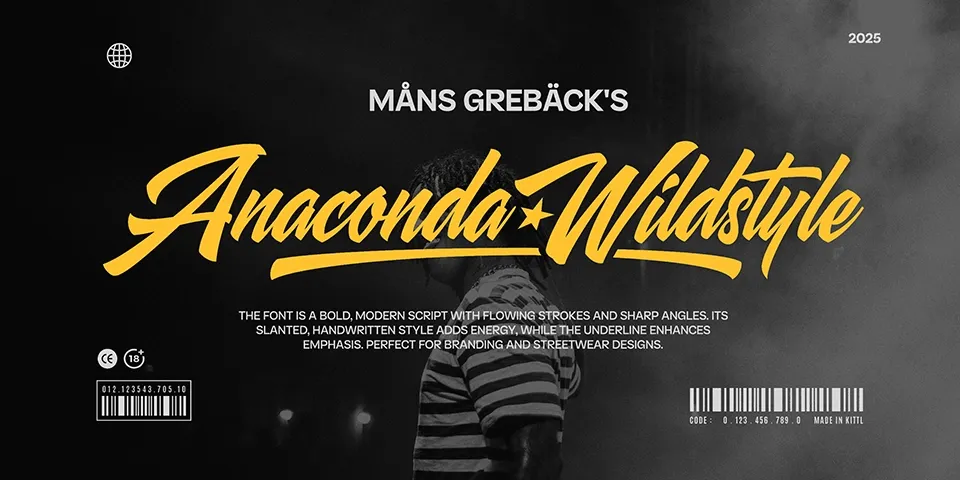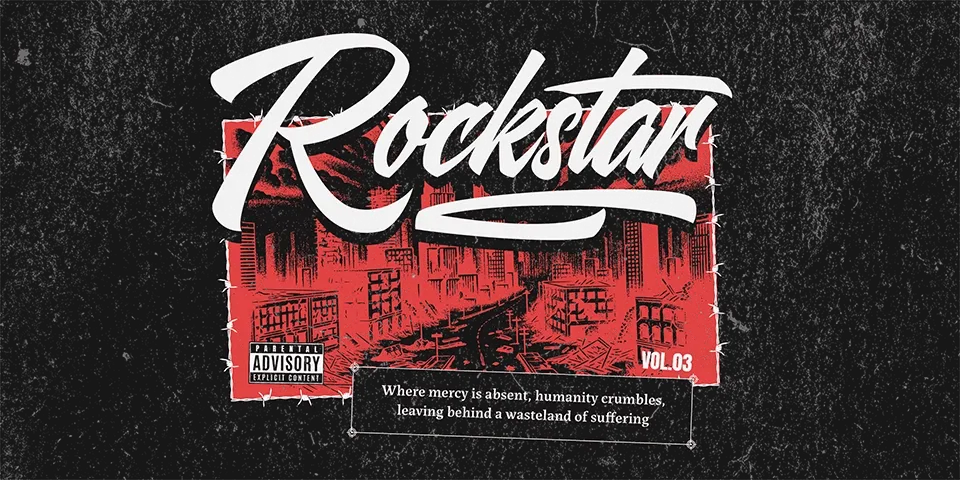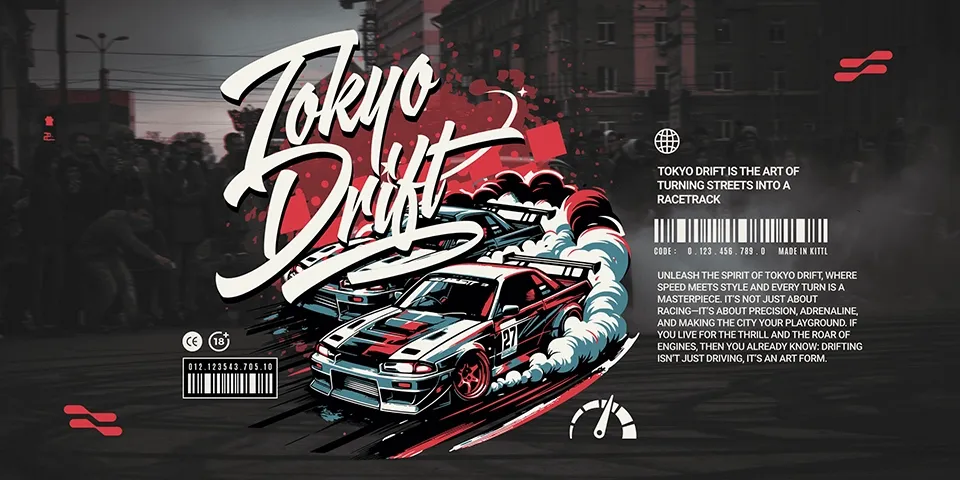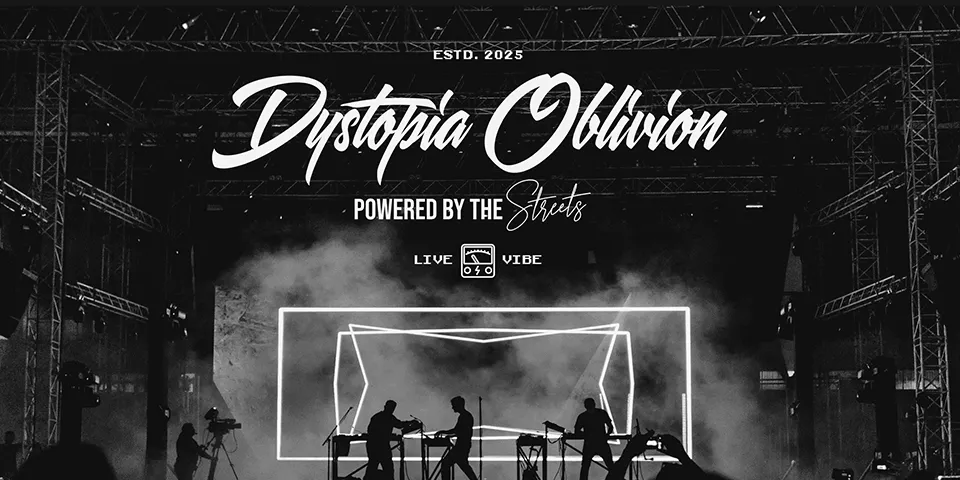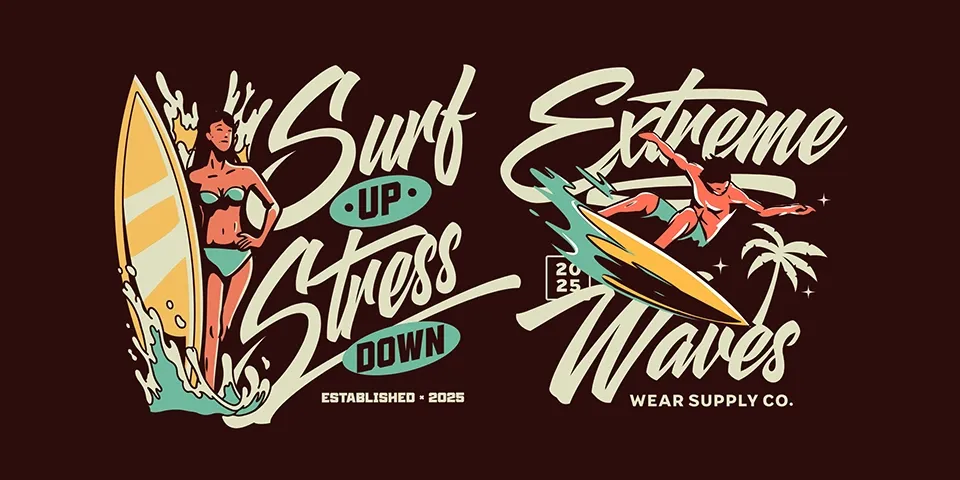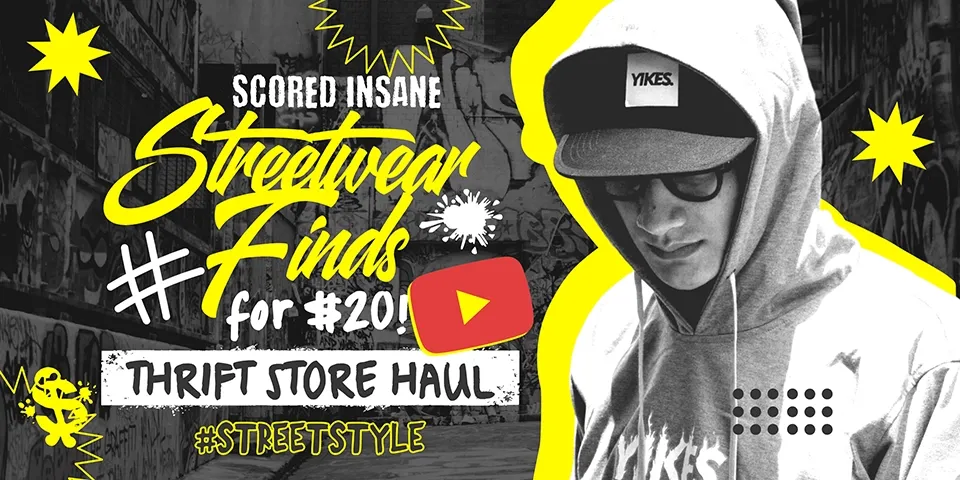
Anaconda Wildstyle Font
Designed by Måns Grebäck
Anaconda Wildstyle delivers raw energy through its serpentine lettering and unrestrained curves . This script bridges the gap between urban street art and expressive hand-lettering. The characters feature dramatic sweeps and varied stroke weights, creating constant motion across the baseline. It even includes unique swash features activated by underscores, allowing designers to easily underline words with custom flourishes . This typeface excels when applied to edgy fashion apparel, extreme sports branding, or rebellious music merchandise where attitude takes priority. However, its complex loops and aggressive styling make it unsuitable for formal corporate identities or dense paragraphs. Give these letterforms plenty of breathing room alongside clean sans-serifs to avoid visual clutter.
Edgy streetwear apparel and clothing tags
Underground music event promotions
Skateboard graphics and extreme sports gear
Lengthy editorial paragraphs or body text
Minimalist or high-end luxury branding
Corporate financial reports and serious presentations
Perfect for branding, fashion, and poster, with a bold and graffiti style.